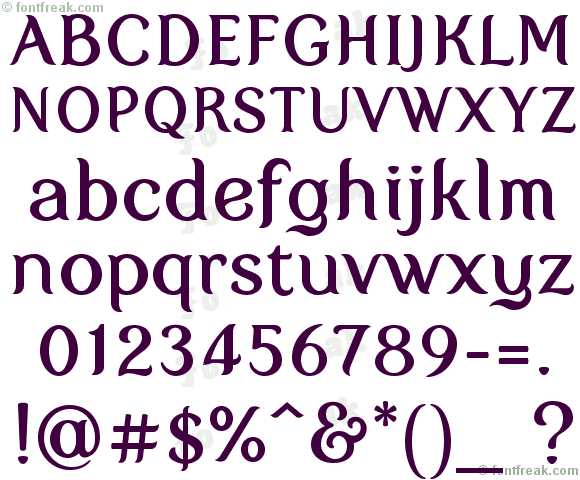
MyFairCody
About MyFairCody
MyFairCody is a captivating display font designed by Darim Kim, offering a unique blend of creativity and elegance. As a decorative typeface, it features playful curves and flourishes that draw attention and provide a whimsical touch to any design project. The font showcases a moderate stroke weight with contrasting thin and thick lines, which contribute to its dynamic appearance. The spacing is well-balanced, allowing for easy readability while maintaining an artistic flair. The decorative elements, such as the swashes on select letters, add character and charm, making it particularly eye-catching.
This font is perfect for a variety of use cases. It shines in wedding invitations, where its romantic style can enhance the overall aesthetic. Additionally, MyFairCody is an excellent choice for movie posters, where it can evoke a sense of drama and intrigue. Its playful nature also makes it suitable for restaurant menus, particularly for establishments that wish to convey a casual yet stylish ambiance. Content creators will find it beneficial for social media graphics, where bold and engaging typography is essential for capturing audience attention. Graphic designers and small business owners will appreciate its versatility and uniqueness, which can help their projects stand out.
Author Darim Kim